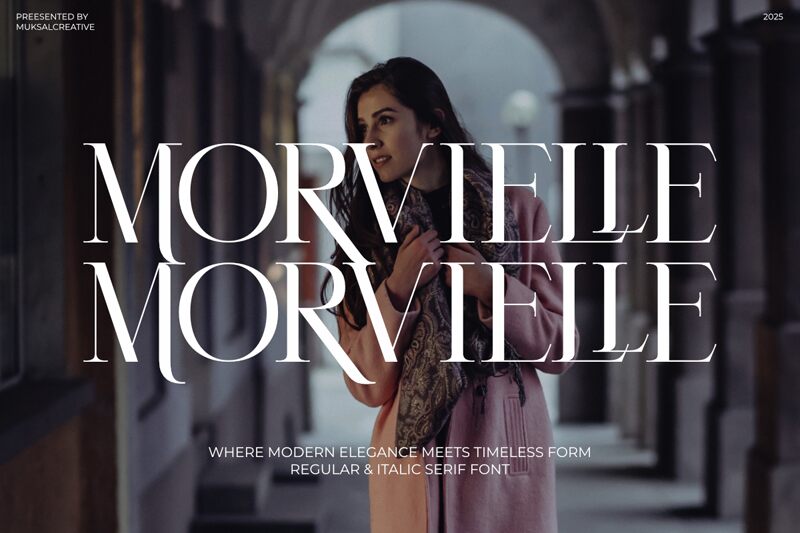
Morvielle font designed by Muksal Creative is a serif typeface classic in essence, but with a modern twist. This font is elegant and refined, adding sophistication to all the designs which they decorate. Stylish with every curve, the font is the definition of seeing beauty in all things formal.
A luxurious collection can be used for typographic artwork, print design, packaging, and branding. Its versatility also enables its usage in the multiple formal documents that require a sharp font such as business cards, CVs, contracts, cover letters, and reports. Titles for elegant/contemporary movies are also a possible option.